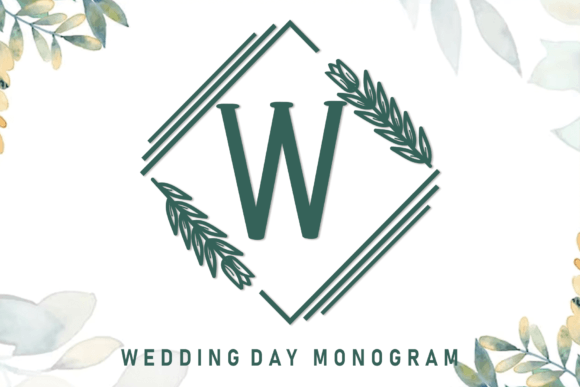
Introducing the Wedding Day Monogram Font, a decorative font family that seamlessly blends the timeless elegance of monograms with the ethereal beauty of floral accents. This masterfully crafted font is the brainchild of Roronoa zoro.S.P.D, a visionary artist who has captured the essence of romance and sophistication in every curve and stroke.
With its simple yet striking letterforms, the Wedding Day Monogram Font exudes a sense of understated luxury. The delicate floral border that adorns each character adds a touch of nature's allure, transforming ordinary text into breathtaking works of art. Whether you're crafting elegant invitations, personalized stationery, or eye-catching display posters, this font will elevate your designs to new heights.
Picture this: your wedding invitation adorned with the Wedding Day Monogram Font, the names of you and your beloved entwined within a garland of delicate flowers. Your guests will be captivated by the intricate beauty of the font, a testament to the love and care you've poured into your special day.
Or envision your personalized stationery, each letter adorned with a unique floral motif, reflecting your personal style and adding a touch of whimsy to your everyday correspondence. With the Wedding Day Monogram Font, even the mundane becomes magical, transforming simple notes into cherished keepsakes.
The possibilities are endless with the Wedding Day Monogram Font. Its versatility extends beyond wedding-themed projects, making it the perfect choice for creating captivating posters, flyers, and social media graphics. The font's innate charm and sophistication will captivate your audience, leaving a lasting impression that will keep them coming back for more.
So, embark on a creative journey with the Wedding Day Monogram Font, and let your designs blossom into works of art. Its timeless beauty and captivating details will transform your projects into masterpieces, leaving an unforgettable mark on all who behold them.